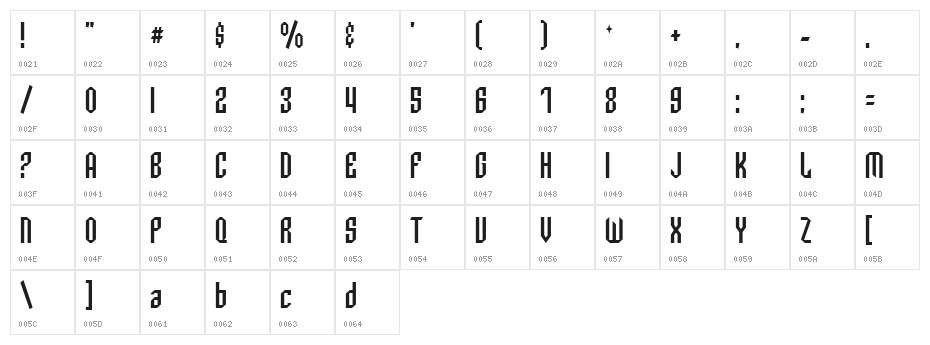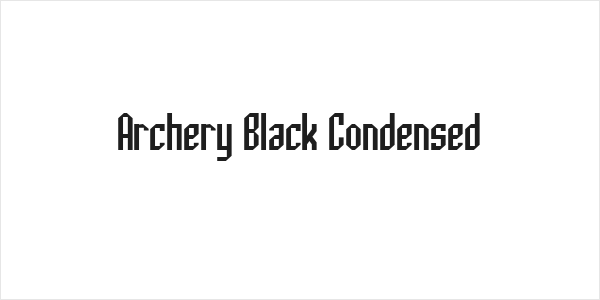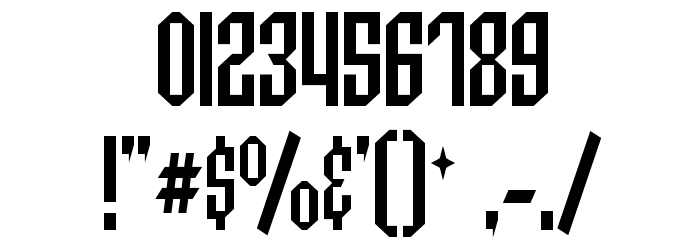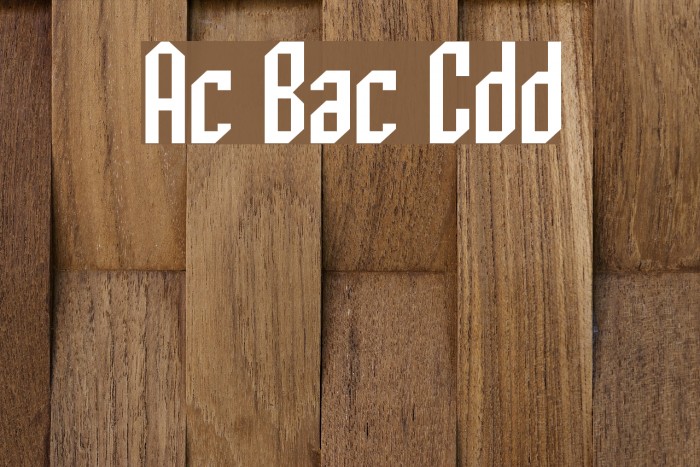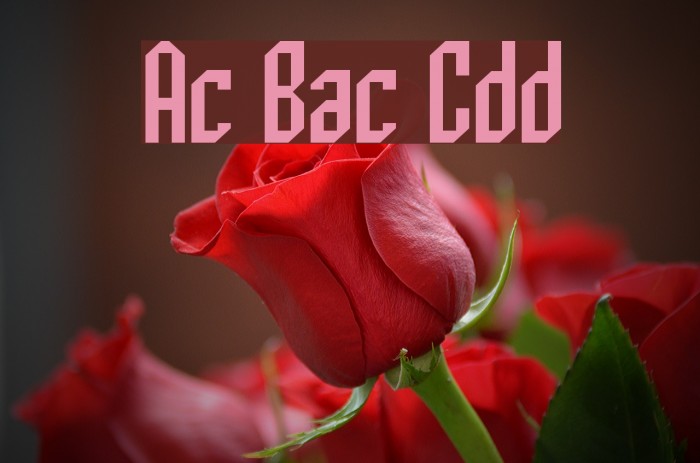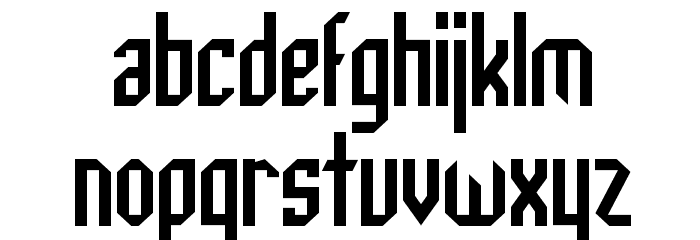
Archery Black Condensed Font
Archery Black Condensed Description
This font features a bold, geometric design with sharp angles and a condensed structure. The uppercase and lowercase letters maintain a consistent height, creating a uniform appearance. The characters are tightly spaced, enhancing the compact look. The numerals and special characters follow the same angular style, contributing to a cohesive aesthetic. The font's strong lines and distinct shapes make it highly legible, even at smaller sizes. Its modern and edgy style is suitable for projects that require a bold statement.